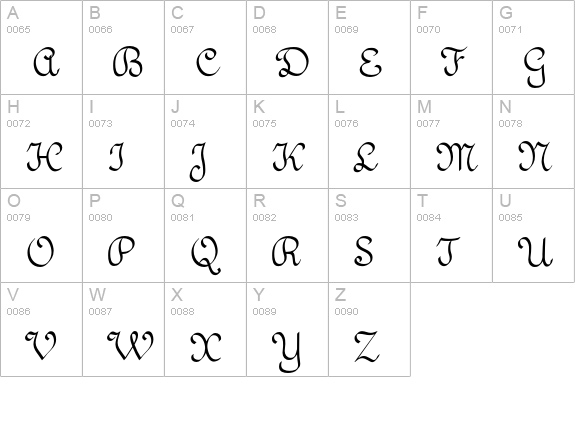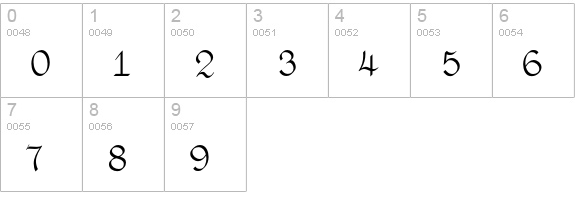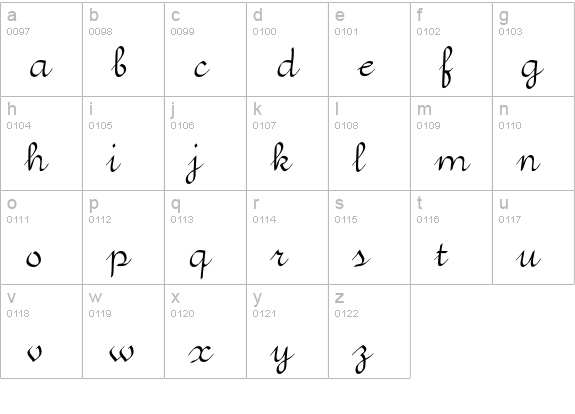
Introducing Aubergine font, a stylish and versatile typeface that exudes elegance and sophistication. With its unique curves and modern design, Aubergine is perfect for a wide range of projects, from branding to editorial design. This free font offers a perfect balance between classic and contemporary styles, making it a must-have for designers seeking a touch of luxury in their work. Aubergine font is freely available to download at FontsMarket.com, where you can access this exquisite typeface and elevate your designs with its timeless charm. Embrace the beauty and versatility of Aubergine font to bring a touch of sophistication to your projects.